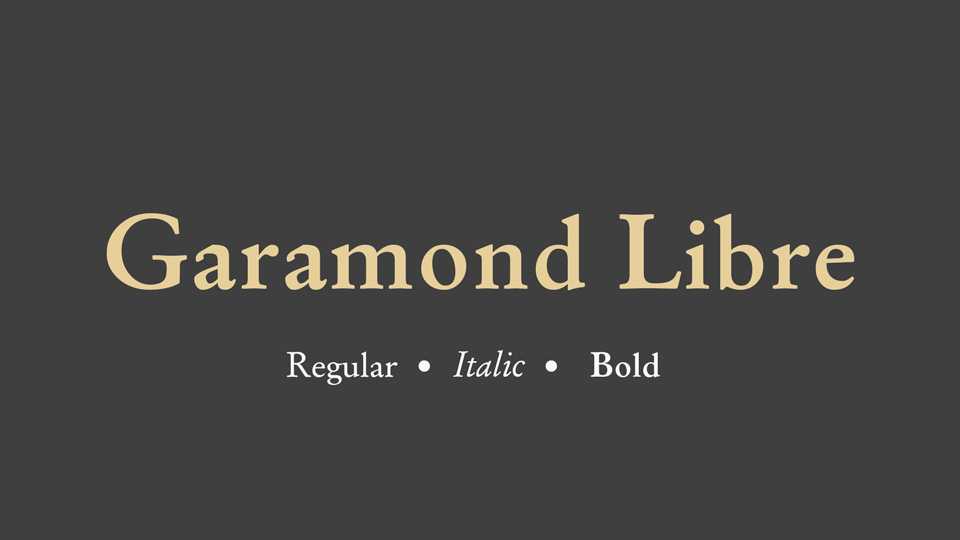
Download Garamond Libre typeface, an old-style serif font family in two weights and Italic. It is a “true Garamond,” i.e., it is based off the designs of 16th-century French engraver Claude Garamond.
Designer: Daniel Benjamin Miller